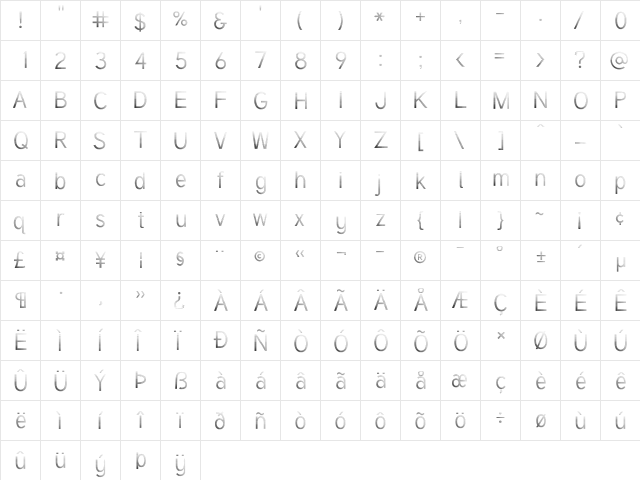
ATHREEDTOFFUCUBIC Regular
| Foundry | TATTOOFONT3D.COM |
| Designer | ANDRE ALLAGUY-SALACHY |
Design Context for ATHREEDTOFFUCUBIC Typeface
ATHREEDTOFFUCUBIC takes a measured approach to typography — its balanced proportions and neutral character make it a reliable workhorse for both digital and print work.